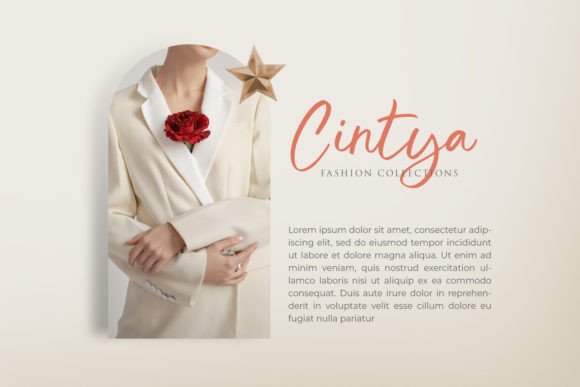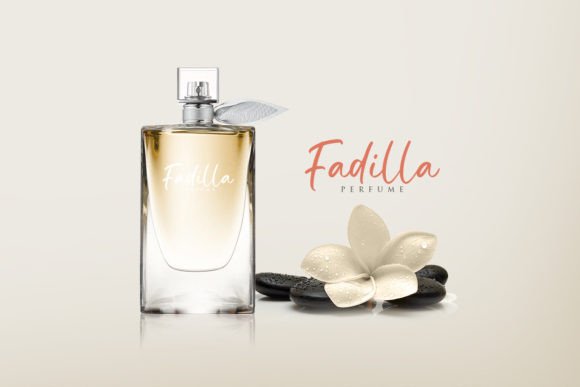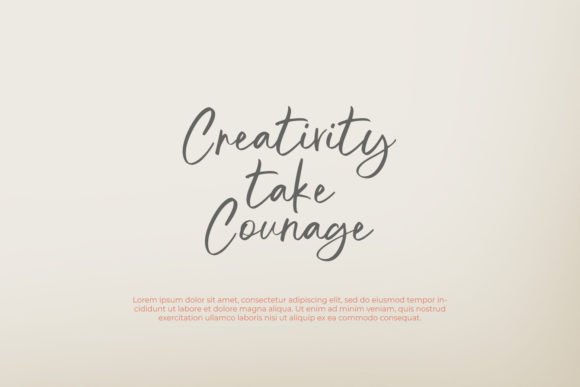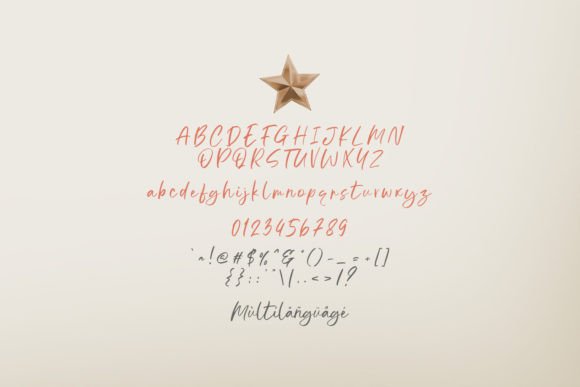
Introducing Balsign: Elevate Your Designs with a Fresh and Unique Script
Are you tired of using the same old fonts for your design projects? Look no further! We’re excited to introduce Balsign, a fresh and unique script that adds a beautiful touch to any design. With its elegant and versatile style, Balsign is perfect for designers and crafters looking to create stunning visual content.
What Makes Balsign Special?
Balsign is a script font that boasts a distinctive and beautiful touch, making it ideal for a wide range of design projects. Its unique style is perfect for creating eye-catching posters, logos, magazines, book covers, banners, and more. Whether you’re working on a personal project or a client’s design brief, Balsign is sure to impress.
One of the best things about Balsign is its versatility. This font can easily be adapted to a very large set of projects, making it a valuable addition to your design toolkit. From elegant and sophisticated designs to bold and playful ones, Balsign can help you create beautiful designs that stand out from the crowd.
Balsign is a must-have font for designers and crafters who want to take their designs to the next level. Whether you’re a professional designer or a DIY enthusiast, this font is perfect for anyone looking to add a touch of elegance and sophistication to their work.
Use Balsign for:
- Magazines and brochures
- Book covers and e-book designs
- Banners and signage
- Social media graphics and more!
Why Choose Balsign?
So, why choose Balsign over other fonts? Here are just a few reasons:
- Unique style: Balsign has a distinctive and beautiful touch that sets it apart from other fonts.
- Versatility: This font can be used for a wide range of design projects, from elegant and sophisticated to bold and playful.
- Ease of use: Balsign is easy to read and works well in both digital and print formats.
In conclusion, Balsign is a fresh and unique script font that is perfect for designers and crafters looking to add a touch of elegance and sophistication to their work. With its versatile style and endless design possibilities, Balsign is a must-have font for anyone looking to create stunning visual content. So why wait? Get Balsign today and start creating beautiful designs that stand out!